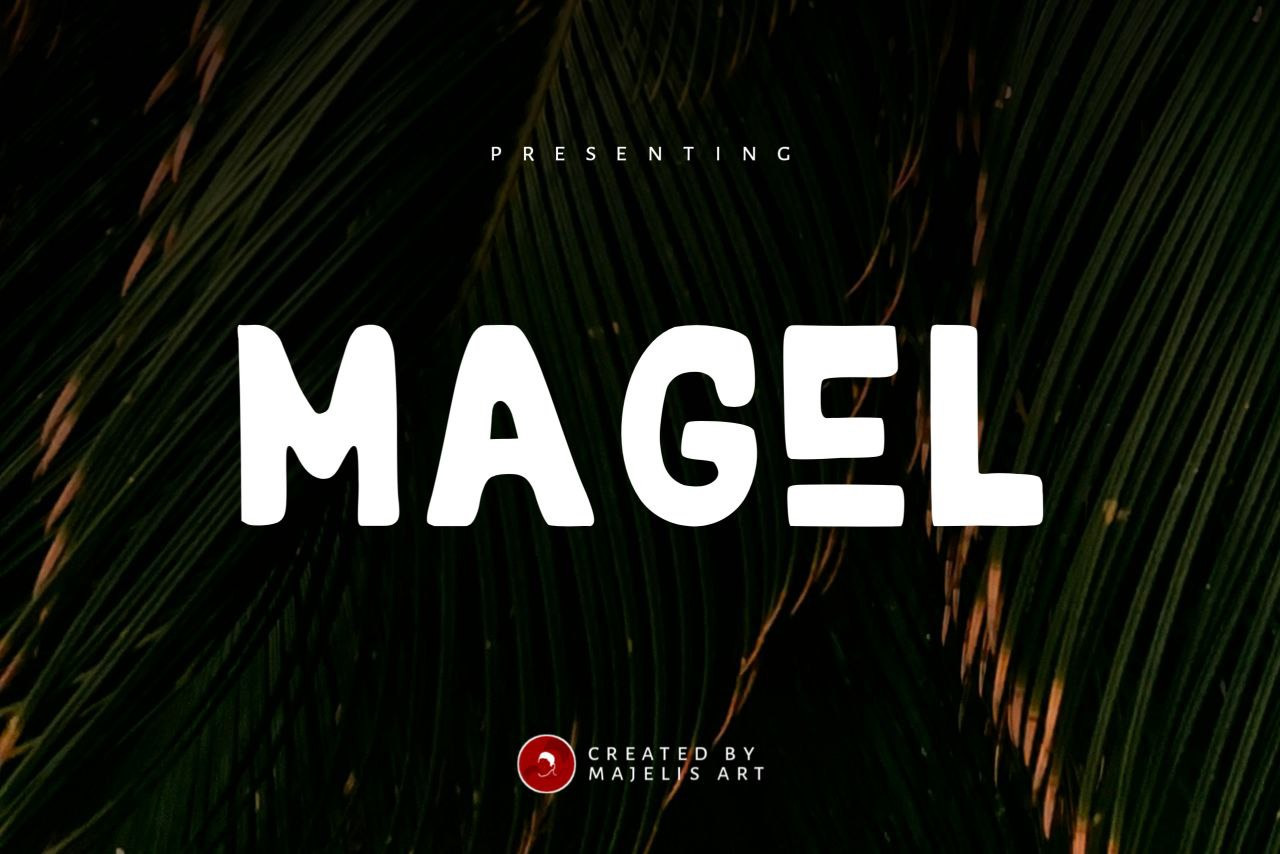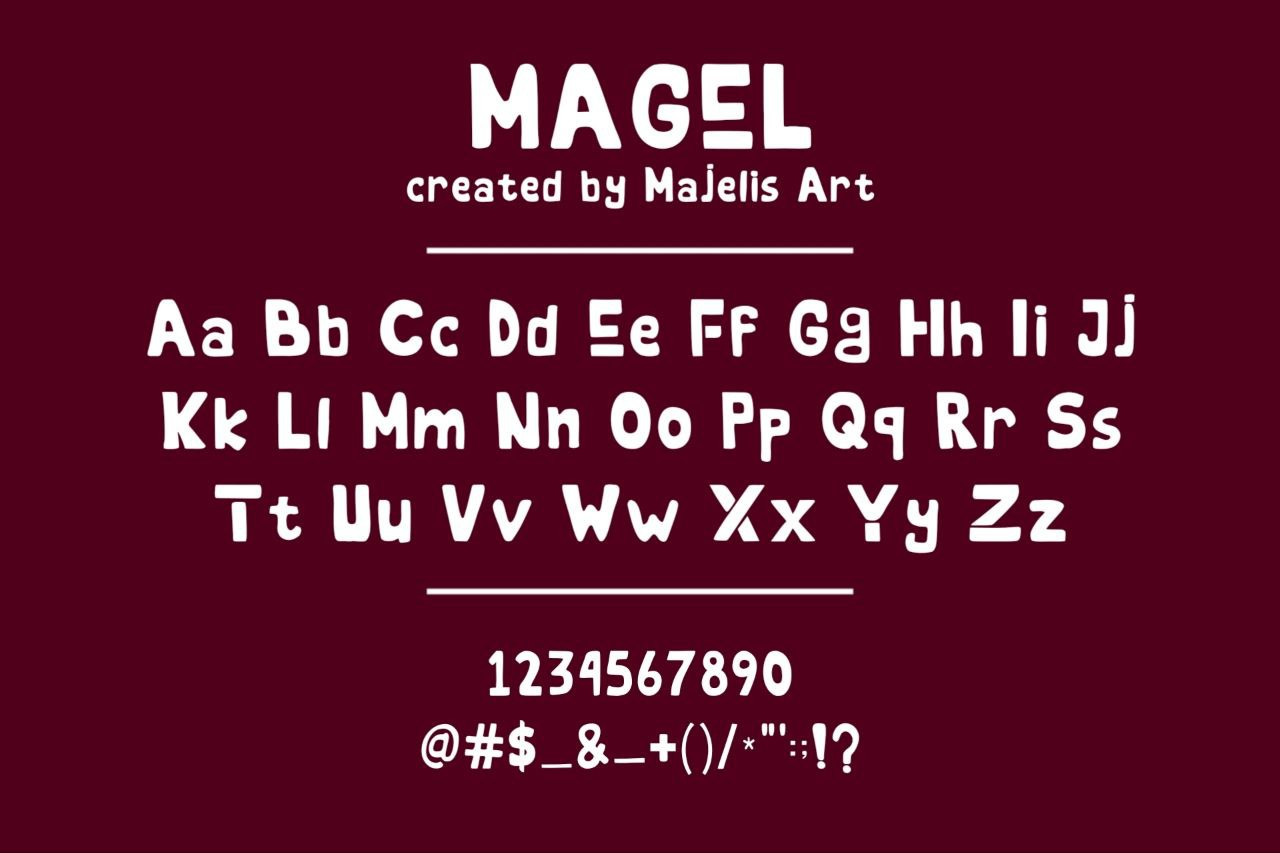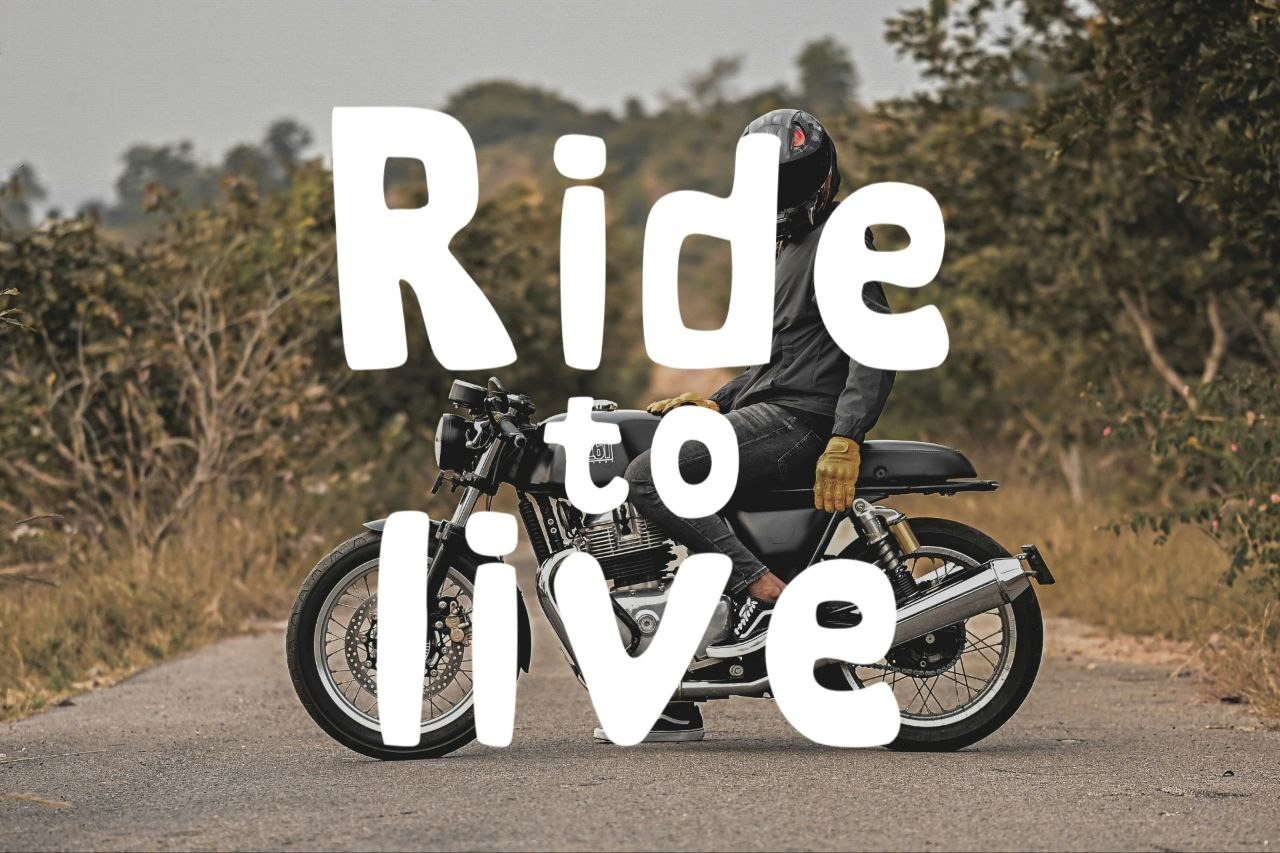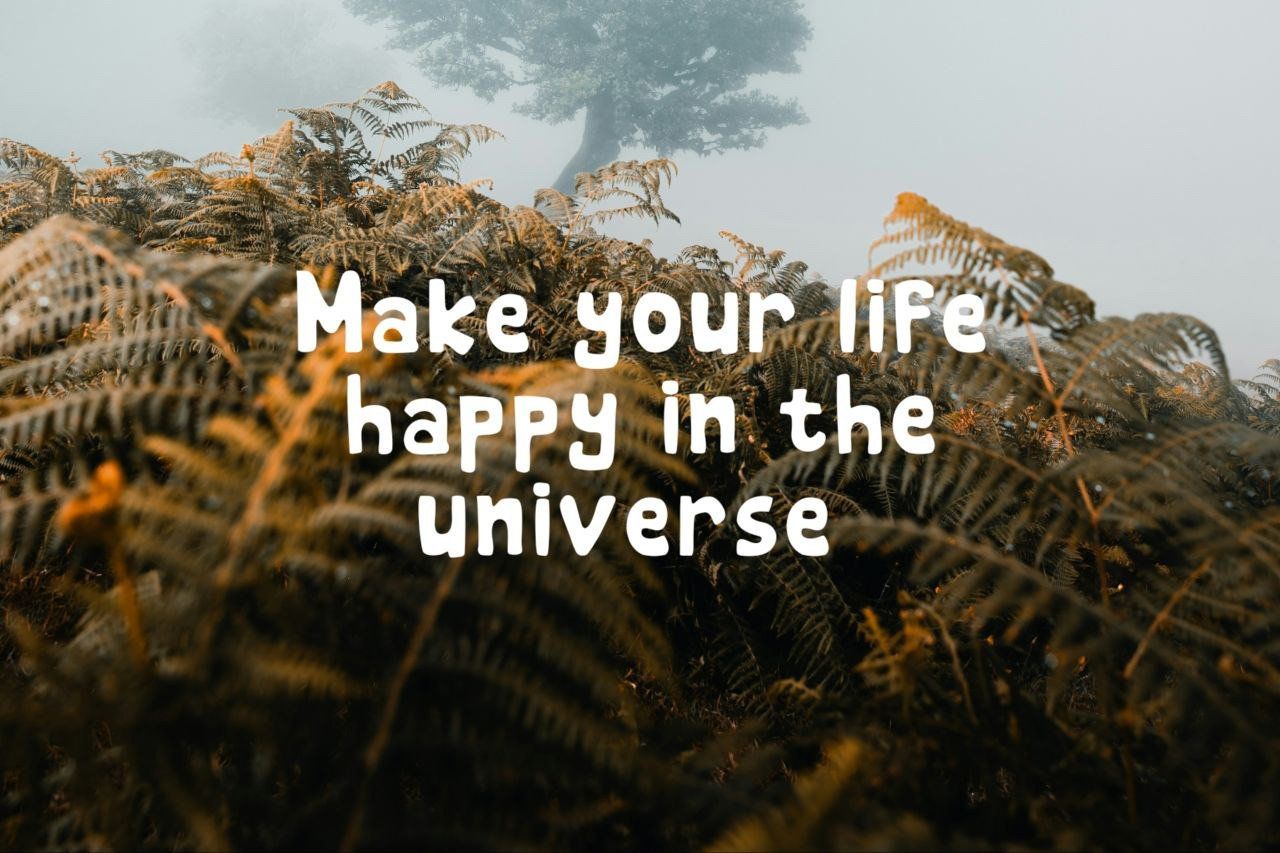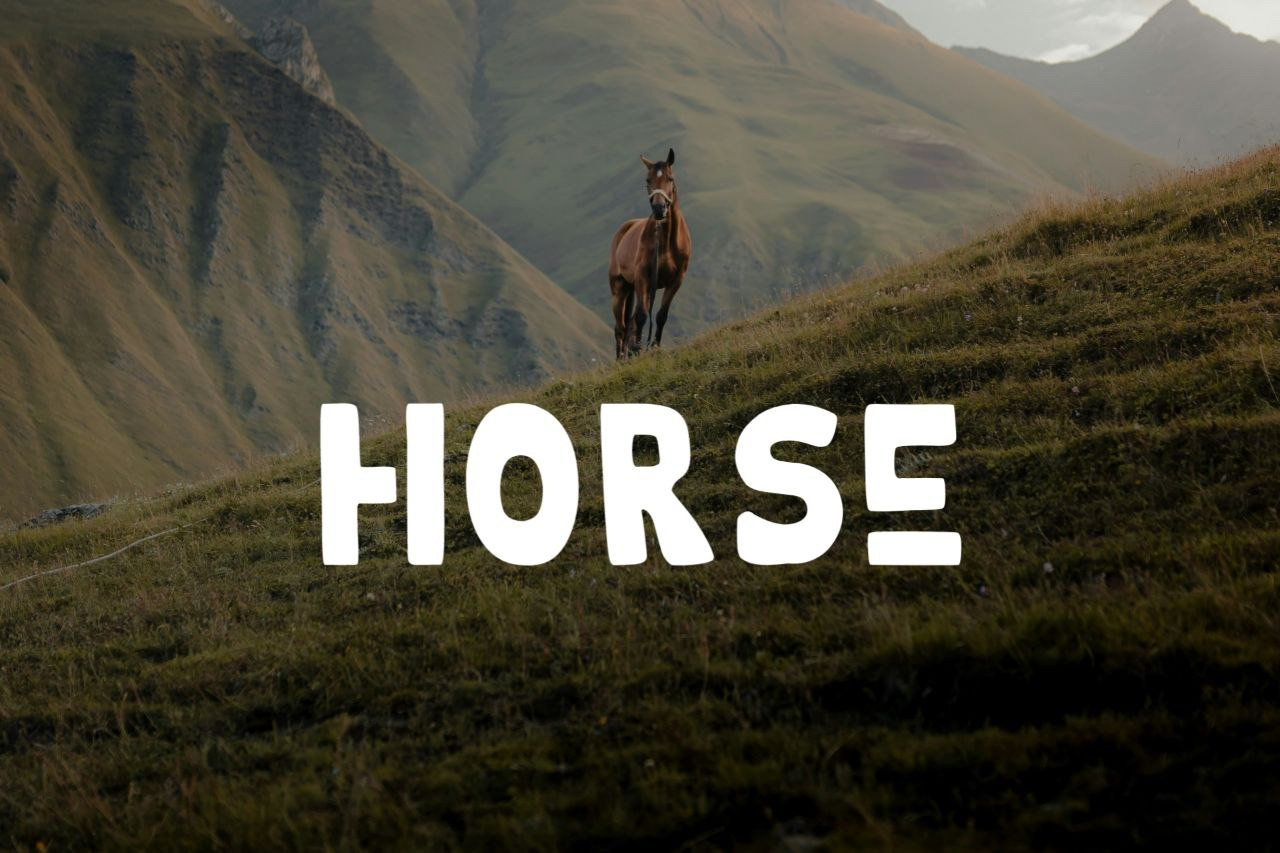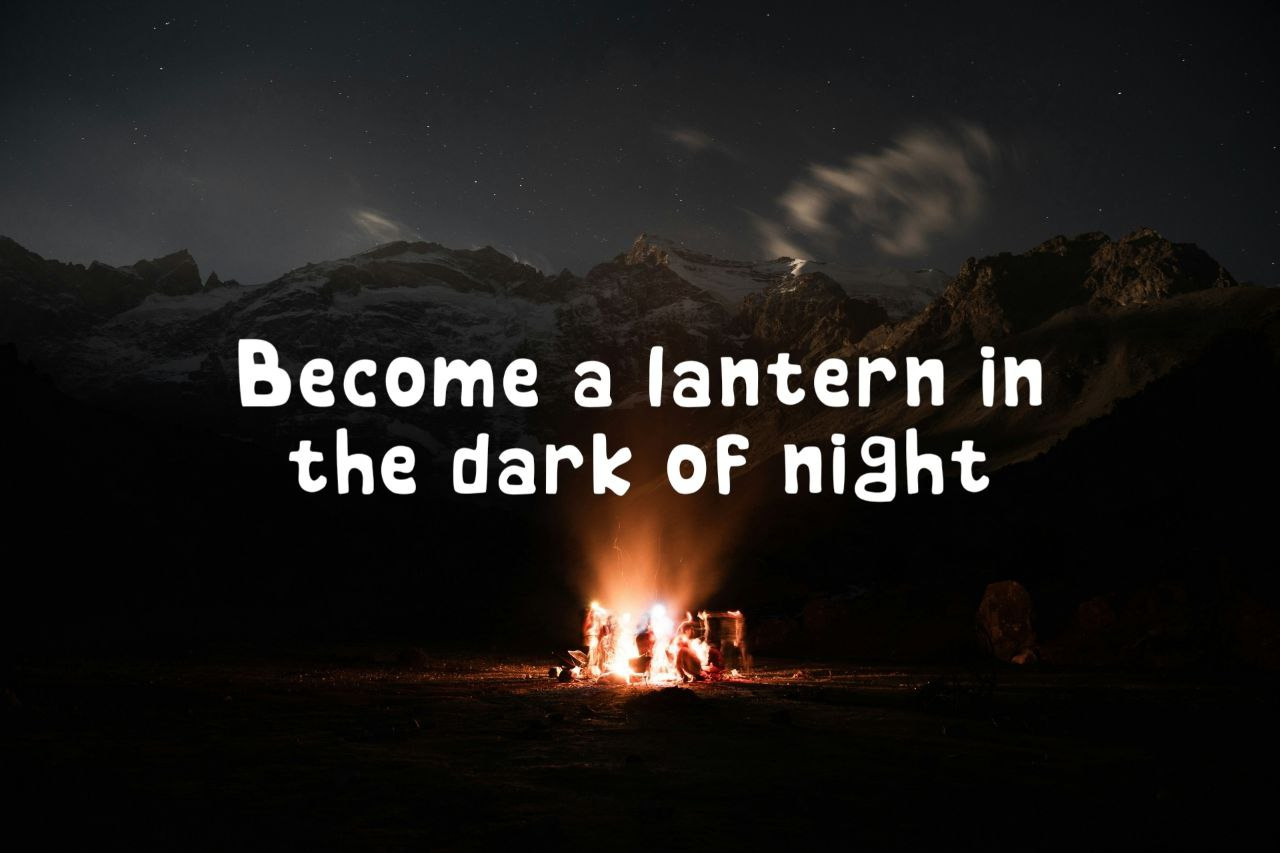
MAGEL FONT
This is a font with its own unique letter style, it has a theme of joy and happiness. This font is used for products, brands, posters, and others.